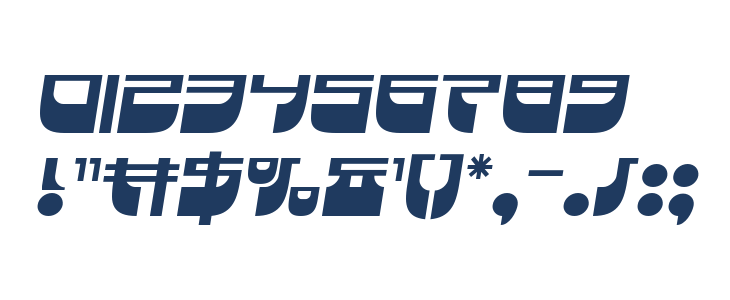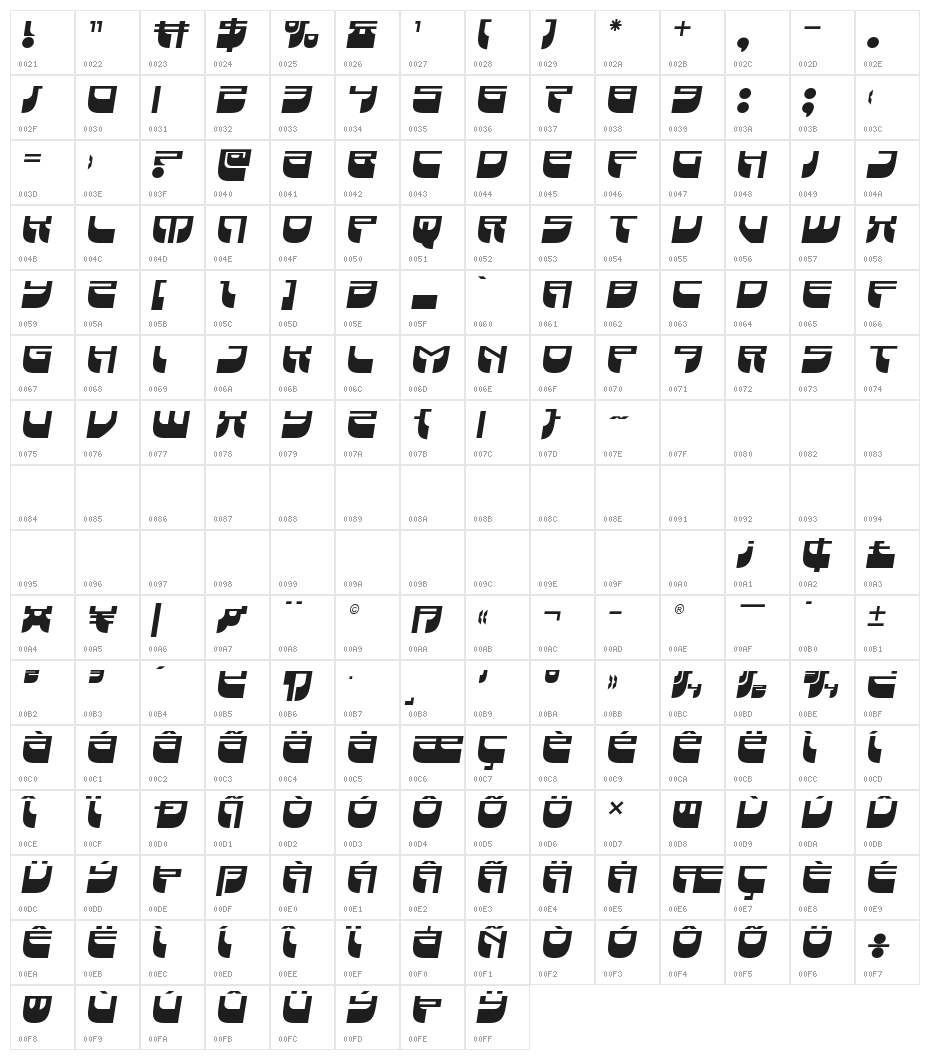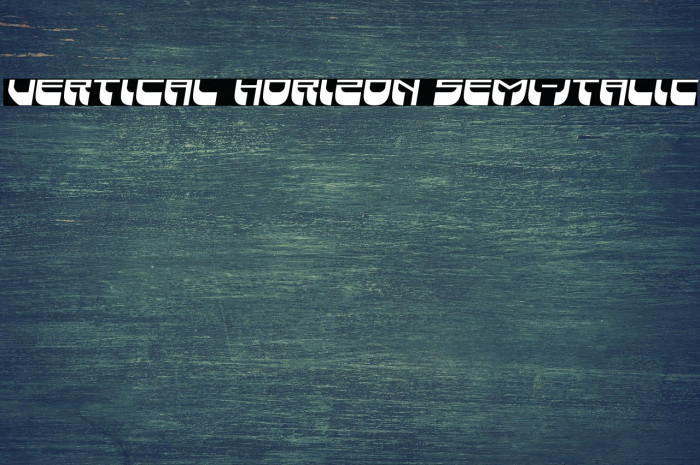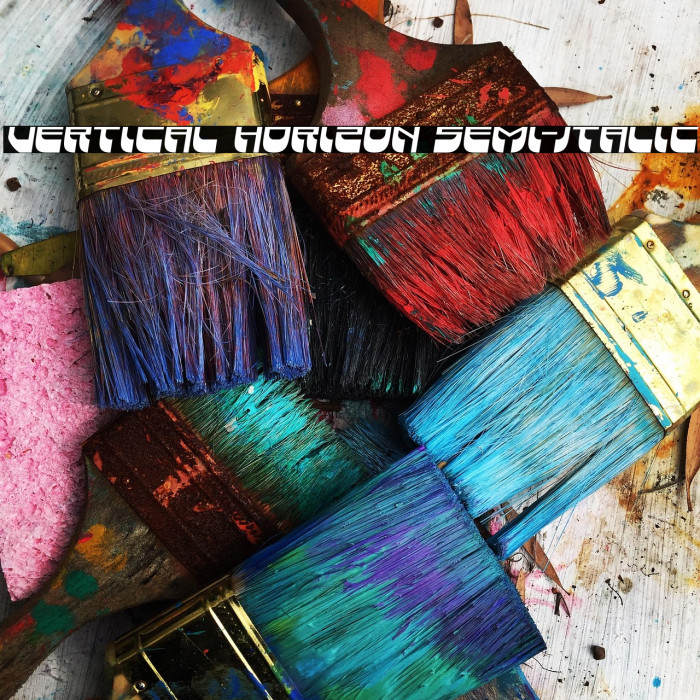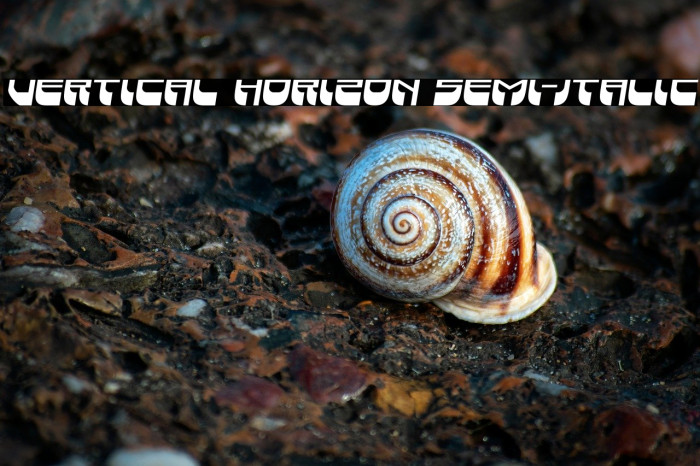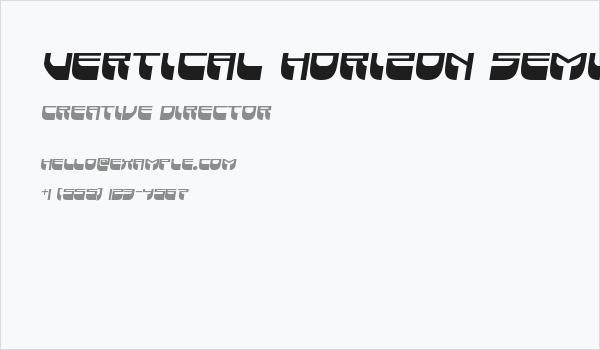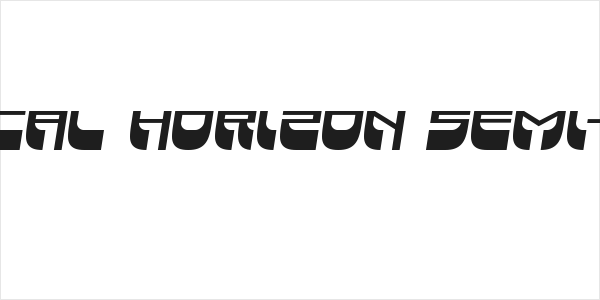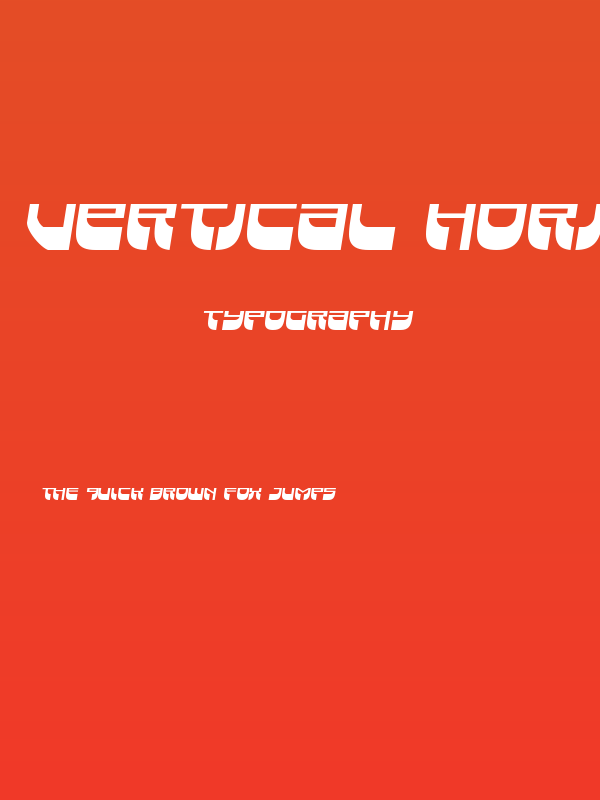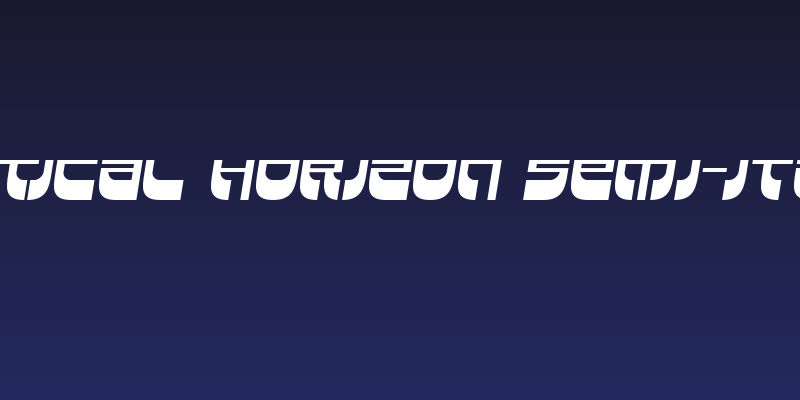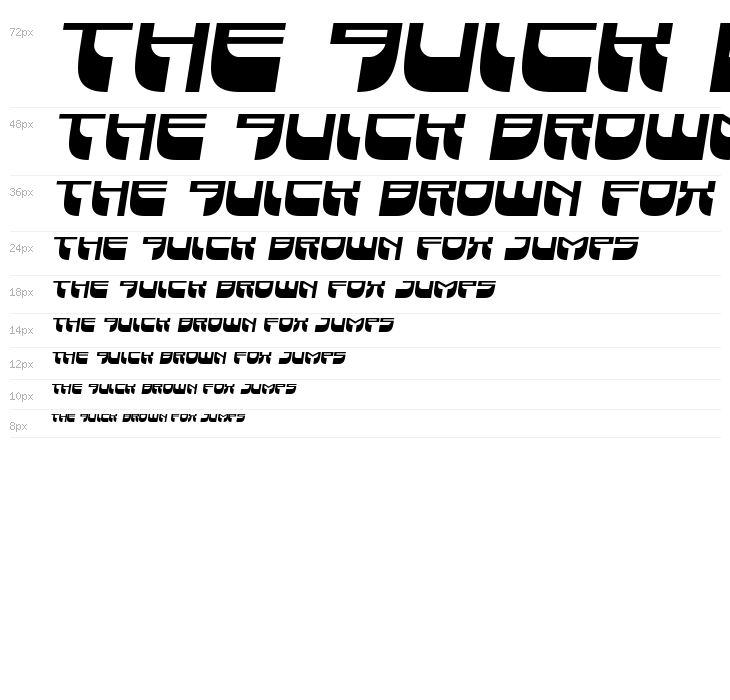
Vertical Horizon Semi-Italic Font
Vertical Horizon Semi-Italic Description
This font features a futuristic and bold design with a semi-italic slant, giving it a dynamic and forward-moving appearance. The characters are uniquely shaped with sharp angles and smooth curves, creating a sense of motion and energy. The uppercase and lowercase letters maintain a consistent style, while the numerals and special characters complement the overall aesthetic. The font's distinctiveness makes it suitable for projects that require a modern and edgy look.
| Proposed Projects | Ideal for sci-fi themed designs, video game titles, tech branding, and modern posters. |